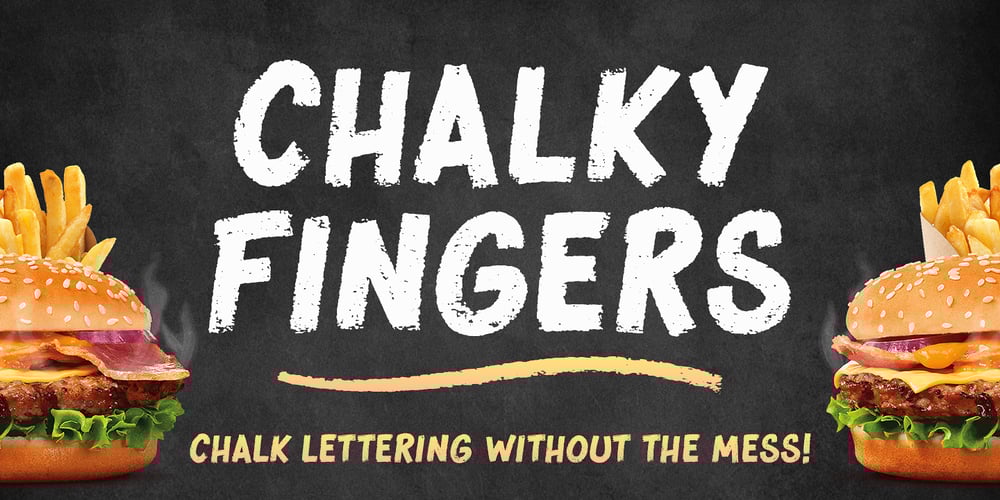
Chalky Fingers Font Family was designed by Jeremy DV Boyd and published by Jeremy DV Boyd. Chalky Fingers contains 1 styles and family package options. Chalk lettering without the mess! Chalky Fingers was designed by a genuine chalkboard artist as his go-to hand-lettering style for custom illustrating menu boards for bars and cafés – now available for all to enjoy as a font.A rough textured font, hand-drawn with real artists’ chalks and perfect for use on restaurant & cafe menu boards, signage, posters, displays, t-shirts, social media quotes, children’s books and food packaging.Chalky Fingers includes loads of swashes and arrows to give extra emphasis to your messages. Numbers, punctuation and multi-language characters are all included.Enjoy getting Chalky Fingers!